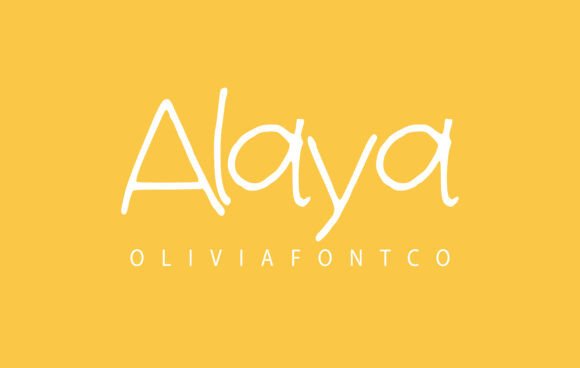
The Alaya Font: A Romantic Touch for Your Creative Projects
I’ll never forget the moment I stumbled upon the Alaya font while working on a wedding invitation project for a dear friend. I had been searching for the perfect handwritten font with a romantic touch, but nothing seemed quite right. That was until I saw Alaya – and I knew immediately that it was the one. In this article, I’ll share my experience with this beautiful font, its features, and how to make the most of it in your creative projects.
A Personal Review of Alaya Font
• ✨ Authentic handwritten feel: Alaya font has a genuine, hand-written look that adds a personal touch to any design.
• ✅ Legibility: This font is incredibly legible, making it perfect for both title and body text.
• 💕 Romantic touch: The font’s elegant and cursive style gives it a romantic feel, ideal for wedding invitations, Valentine’s Day cards, and other special occasions.
• 🎨 Versatility: Alaya font can be used in a wide range of designs, from magazine headlines to social media graphics, branding, and more.
While Alaya font is exceptional, there are a few minor things to keep in mind:
• 🤔 Limited character set: As with any font, there might be limitations in the character set, so it’s essential to test it with your specific text before finalizing your design.
• ⚠️ Not suitable for all languages: Alaya font might not support all languages or scripts, so be sure to check its compatibility before use.
Alaya font comes with a range of OpenType features, glyphs, and stylistic alternates that can enhance your designs. These features include:
• Ligatures: Combine letters for a more elegant look.
• Stylistic alternates: Switch between different font styles to add variety.
• Glyphs: Access additional characters, such as ornaments and swashes.
The Story Behind Alaya Font
Alaya font was designed with the intention of creating a beautiful, handwritten font that captures the essence of romance and elegance. The designer aimed to craft a font that would be both legible and visually appealing, making it perfect for a wide range of creative projects.
Q: What type of projects is Alaya font best suited for?
A: Alaya font is versatile and can be used in various projects, including wedding invitations, social media graphics, branding, magazine headlines, and more.
Q: Is Alaya font suitable for body text?
A: While Alaya font is legible, it’s primarily designed for display text. However, it can be used for body text in certain contexts, such as in a blog or article where a more elegant look is desired.